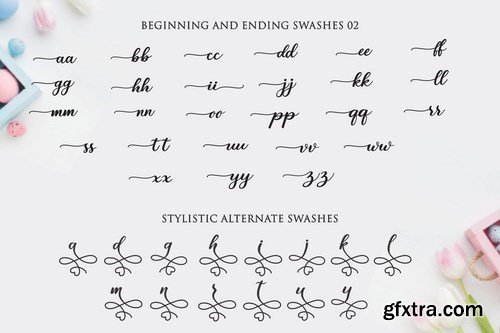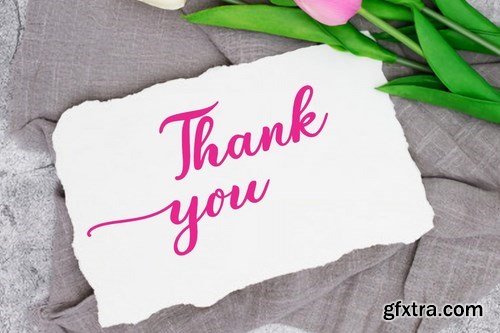
We proud presenting our new font. It's name Bunny Easter.
Bunny Easter is a handcrafted script font with a handwritten† style make this font looks elegant, natural, stylish .
Bunny Easter†would perfect for handcrafted, craft, invitation, logos & branding , photography, advertisements, watermark, social media posts, product packaging, product designs, label, wedding designs, stationery, special events or anything that need handwriting taste. And you can use†Bunny Easter font for†quotes winter greeting cards ( Easter Day, Spring, Summer Collection, Halloween, Christmas or New Year holidays) and etc. What Included this font: TTF Font OTF Font PUA Encoded Characters Fully accessible without additional design software. Fonts include multilingual support for; Afrikaans, Albanian, Catalan, Danish, Dutch, English, Icelandic, Italian, Spanish, Portuguese, German, Swedish, Norweigen, Polish, Indonesian, Zulu and etc Simple installations†